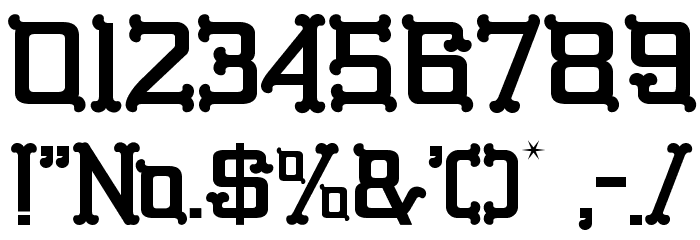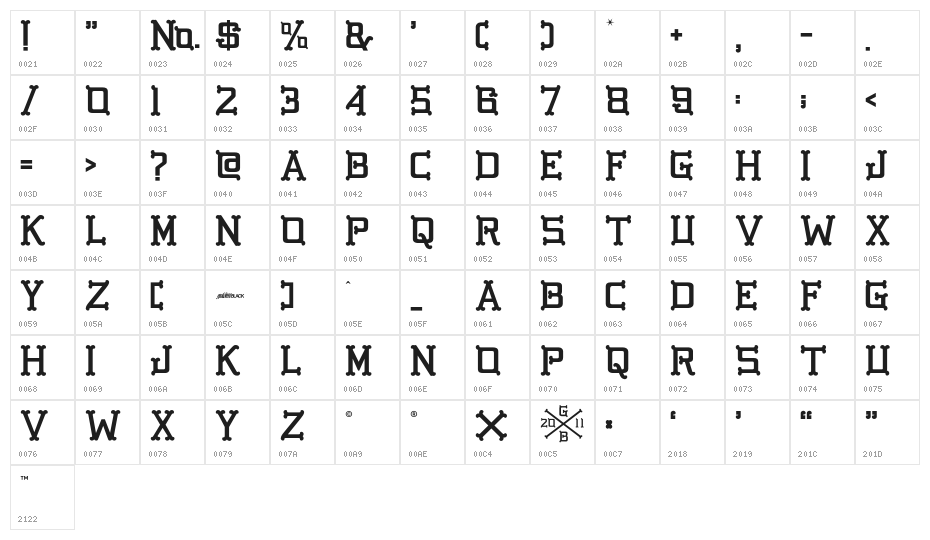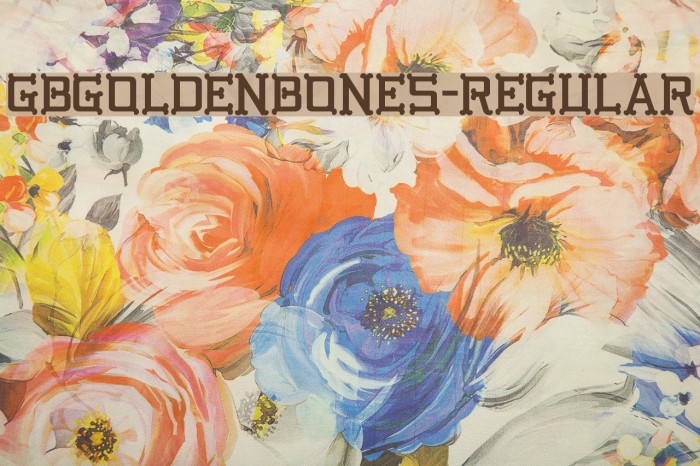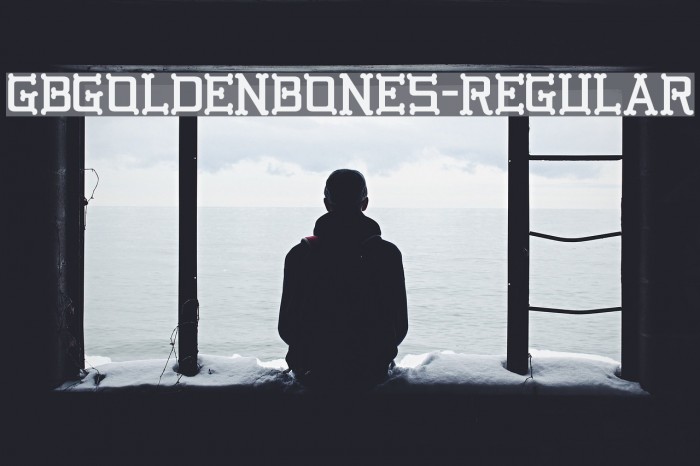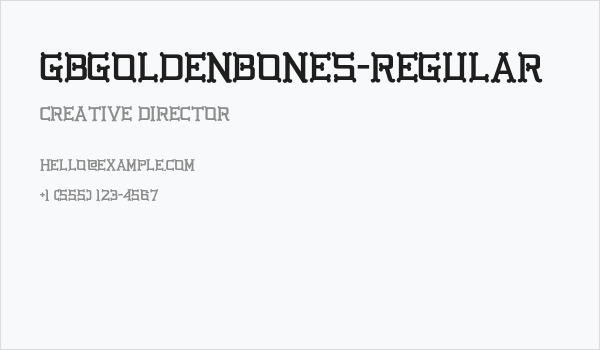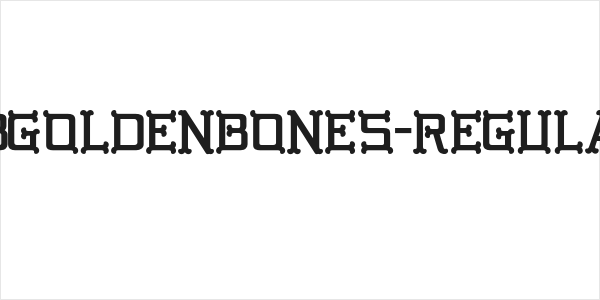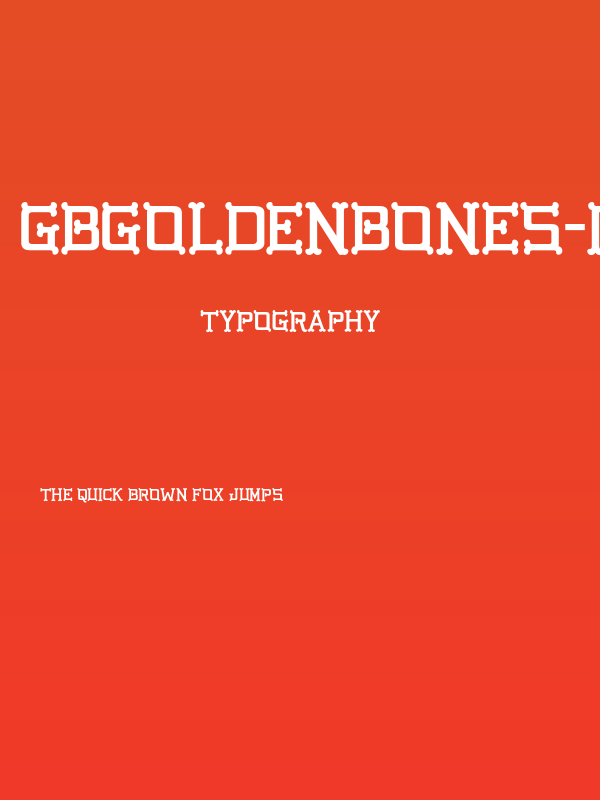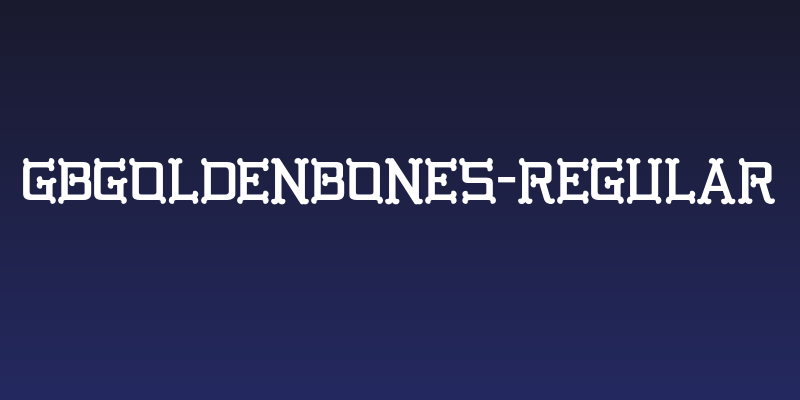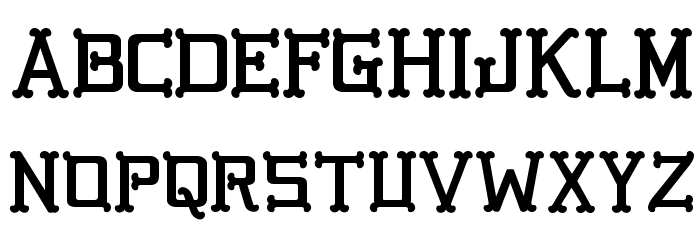
GBGoldenBones-Regular Font
GBGoldenBones-Regular Description
This font features a unique and bold design with a skeletal structure that gives it a distinctive, edgy appearance. The characters are constructed with a series of lines and rounded joints, resembling bones, which adds a playful yet slightly macabre touch. The uppercase and lowercase letters maintain a consistent style, with the uppercase letters being slightly more pronounced. The numbers and special characters follow the same thematic design, ensuring a cohesive look across all elements. This font is perfect for projects that require a standout, thematic typeface with a touch of whimsy.
| Proposed Projects | Ideal for Halloween-themed designs, edgy branding, posters, and creative projects that require a standout typeface. |